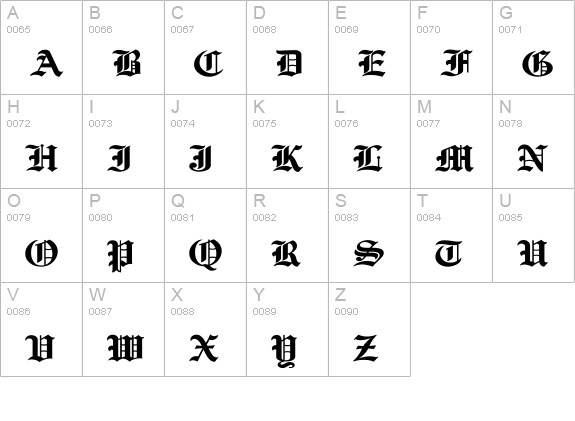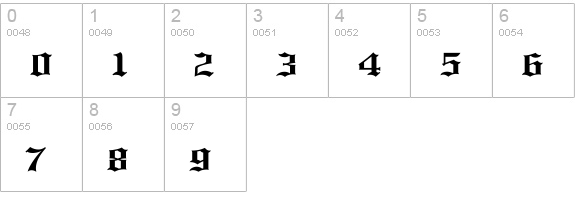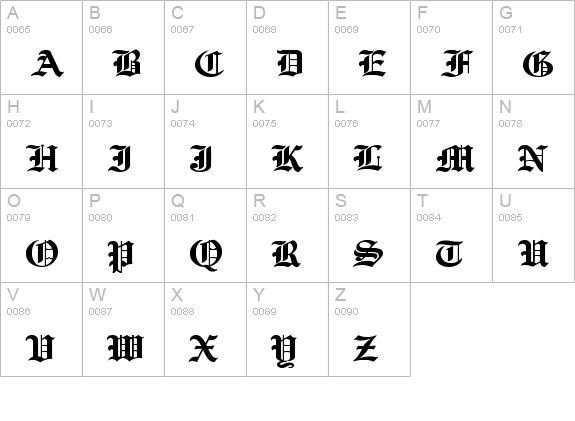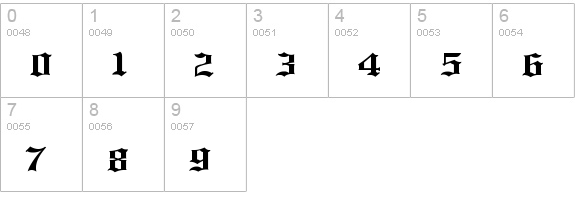
EnglishTowne-Normal Wd is the standard, neutral variant in the EnglishTowne typeface family \xE2\x80\x94 well suited to general body text, paragraphs, and standard typographic work.
EnglishTowne-Normal Wd is a classic and elegant font that exudes sophistication and charm. With its refined serifs and clean lines, this font is perfect for adding a touch of timeless beauty to your designs. Whether you are working on invitations, branding, or editorial projects, EnglishTowne-Normal Wd will elevate your work with its graceful appearance. The best part is that EnglishTowne-Normal Wd is completely free to download at FontsMarket.com. You can enhance your creative projects with this exquisite font without any cost involved. Don't miss out on the opportunity to add a touch of class to your designs with EnglishTowne-Normal Wd - download it today and let your creativity shine!